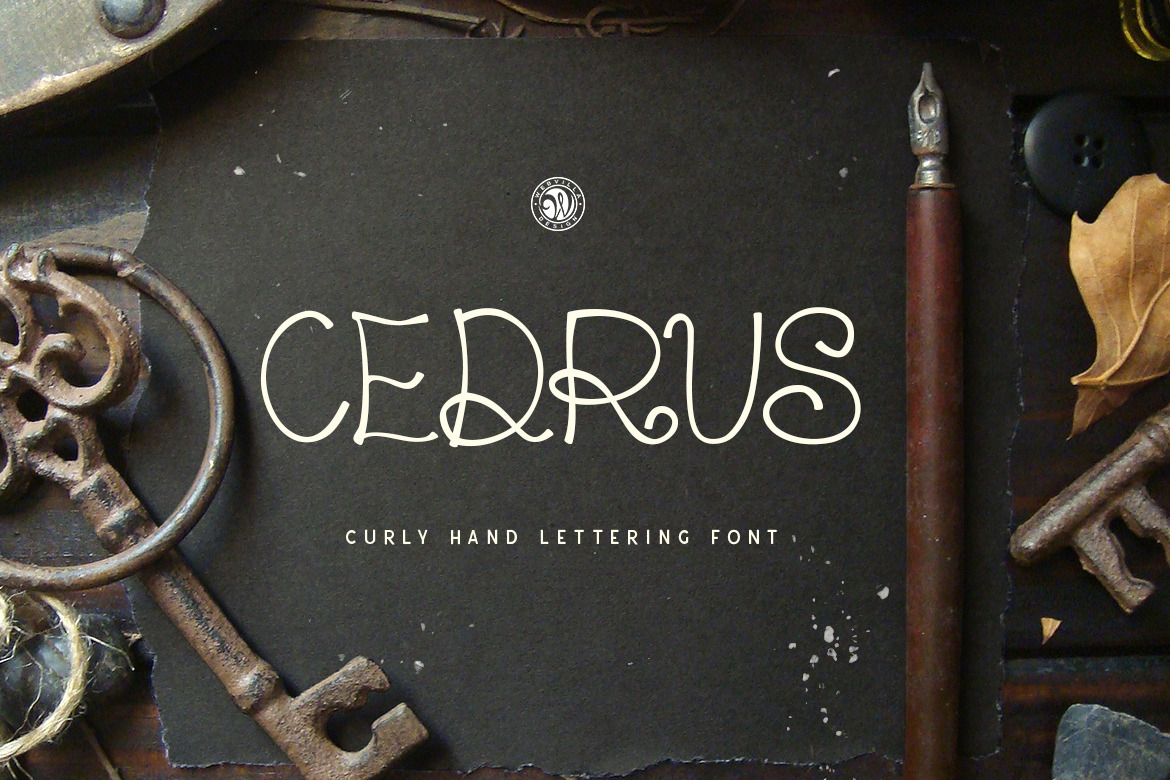
Cedrus Font
Cedrus font - hand lettering display font. Ideal for invitations, logos, branding, blogs, handmade craft items, scrap booking, printed paper items and more.
- all caps font, numbers, punctuation